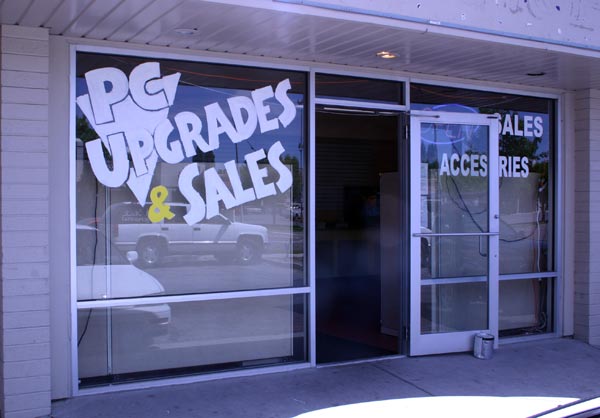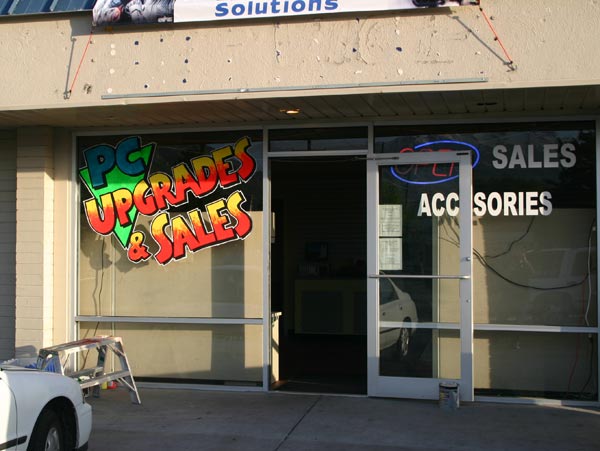
A friend of mine told me he had just opened a little computer repair shop, so I dropped by to take a look.
He's on a shoestring budget, and it really shows. The lettering on the windows wasn't very inviting from the street. I asked if he would let me experiment with window painting, and he agreed.
I have wanted to try window splashes for a long time. Even offering to do work for free I haven't had any takers until now. Here is what I came up with:
It was fun to do, but took longer than I expected. There is going to be more copy below what I did, but it was getting late and I didn't have time to finish.
I'm not sure why the blue is so dull. Everything else shows up fine.
Looks Great Russ! Did you make a paper pattern and tape it on the inside of the window to follow? The lettering really pops. What kind of paint did you use? I too have always wanted to try a window splash so let us know your procedures. How long did it really take you? How would you charge for that if it was a paying customer? Just curious.
As a former splasher, gotta say it looks pretty darn good!
Man, that looks great, Russ... I love it.
Now see if he'll let you fix the other side. That 'Accesories' misspelling is killin' me....
I started with this sketch:
I will make sure to do sketches on graph paper next time. My original sketch wasn't quite the same aspect ratio as the window (stupid!), so it took time to figure out how to lay it out. You can see my makeshift attempt to map it to the window, with inches marked down the sides, and the top divided by feet. A paper pattern would have been nice, but I was too far away to make it feasible to take my drawing home, vector it, plot it on butcher paper, and bring it back. I have an opaque projector that would have worked great, but I didn't have it with me, nor my roll of paper.
The second problem I ran into was seeing the white stabilo marks on the window. I could see them at the top, but not as well where the cream-colored office partition is behind the window. I had to view it from below instead of straight-on to see my lines. I also didn't bring a big ruler, or any string to help me keep long lines straight.
Once the letters were drawn with the stabilo, I started to block them in with flat white paint, Behr I think. I started out with a roller, but found it hard to control. It was probably more to do with user error than a problem with the tool, but it would have been nice to have a smaller roller with a denser foam. So, I switched to a 3/4" Mack 2962 brush. I had a lot more control, but it was a lot slower. The paint was dragging badly. I probably should have thinned it a bit, but I didn't bring any cups to work out of (poor planning), and I didn't want to thin the whole can). In retrospect, I should have dropped what I was doing, run to the store for some supplies and come back.
Once the white was on, I brushed on the color. Again, the paint was dragging because it was drying too fast. It seemed to take forever to cover the white with the color, and it was hard to keep the coverage even. The yellow and orange were done with Rich Art paints. They are water-based and really easy to clean up.
I hadn't noticed that the Day Glo paints are solvent-based until it came time to use them. I hadn't brought minerals spirits with me (poor planning) so I wouldn't be able to use my brushes. I got out my roller again and rolled on the green and the blue (threw away the rollers). That went much faster and it was easier to control the coverage. No more brushes for color next time.
After the color, I started outlining the letters and adding the drop shadows. That went well. I had to clean my brush a lot because the paint would build up pretty quickly. I either need to thin the paint or add some sort of flow agent to it. The same was true with the final white outline. The paint just wants to dry too fast.
It took me about 6 hours to get the window to its current state. If I knew what I was doing, I think I could do it in half the time, or even less.
I'm not sure what I would charge. Maybe someone who does windows could give us an idea. I did it in trade for an old Dell PC that my friend had. It's faster than my current machine.
Here are the tools and the paint:
Looks great Russ. I'm in the same boat as you. Never had anyone ask for it but I wouldn't mind trying it.
I don't know if this would work with the paint you are using, but it would be worth a try as an experiment at your shop before you go out into the field. I saw Super Frog do this with latex paint. Whenever his brush started dragging from the paint drying out, he'd pull out his sample size Rapid Tac and give the brush a quick shot. Loosened the paint right up so he could continue. It looked like it had the same effect as a little paint thinner on One Shot.
Russ....by the time you drive back to the shop to cut the white mask, you could be done with the job. When your called to come out to "look at the window" that's when you take everything pre-packed and ready to paint! Most likely the business next door will see you painting and want something too!
PS...I haven't done splash windows in a couple of years now, but I still keep 3 milk crates full and ready to go! Another thing....customers LOVE simple cartoons and are willing to pay much more for that!!! Have fun or don't do it!